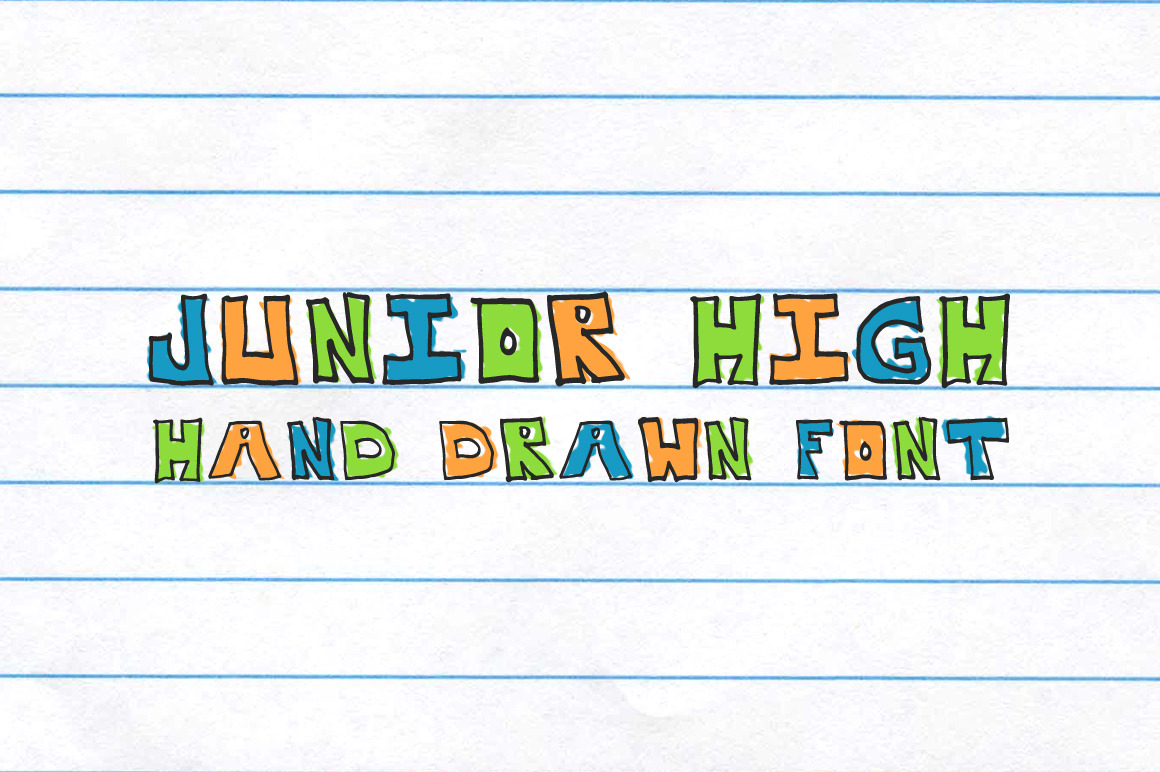
Junior High Blocky Notebook Font
Everyone remembers block lettering from Junior High, right? Now compose your secret love letters in a fraction of the time with this hand drawn font face!
Our Junior High font recreates the feel of passing notes in a classroom with sketchy, hand-drawn block letters and numbers. The lines are perfectly squiggly and uneven to complete the authentic notebook look.
Potential Uses:
- School-themed posters, brochures and other print designs
- Bold and unique header images for web sites
- A hand-drawn complement to illustrations, sketches or logos